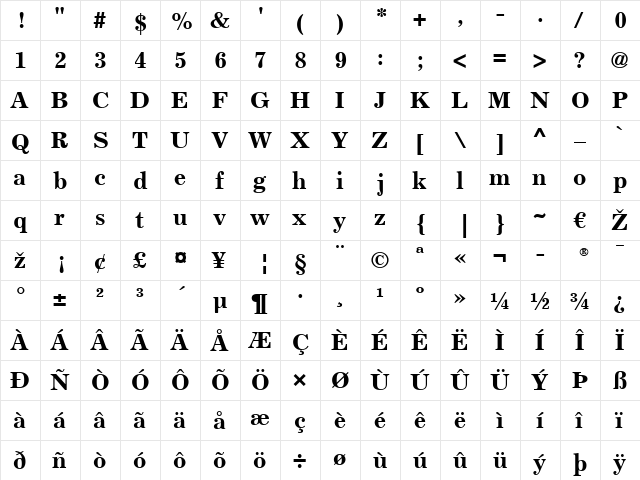
Excelsior LT Bold
Design Context for Excelsior LT Typeface
Excelsior LT is a composed and adaptable typeface that performs quietly and consistently across a wide range of design contexts. The heavy weight commands attention and anchors typographic hierarchies.